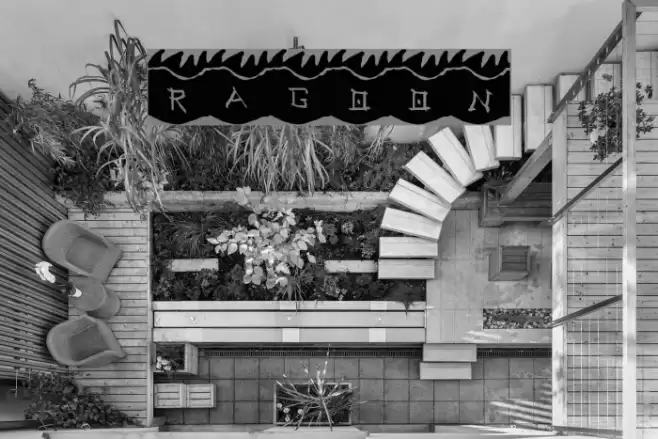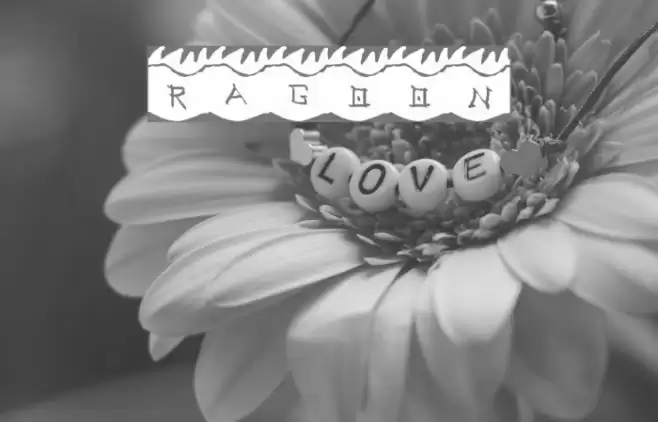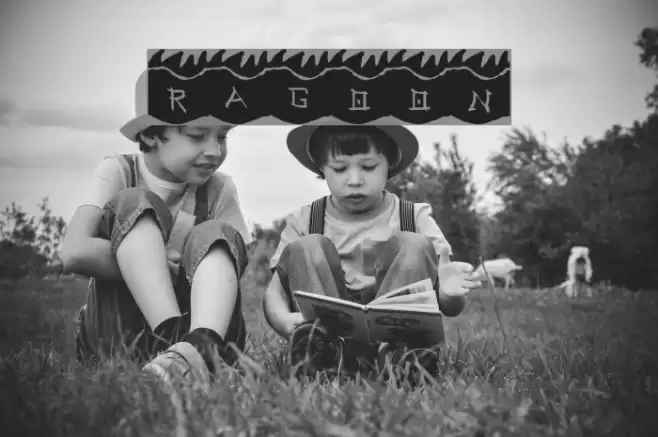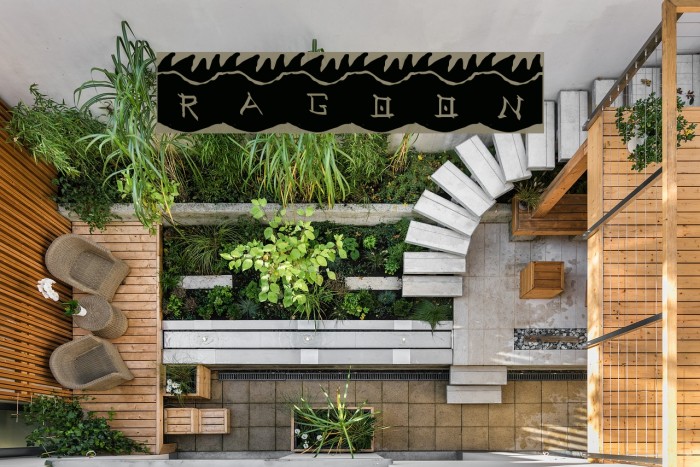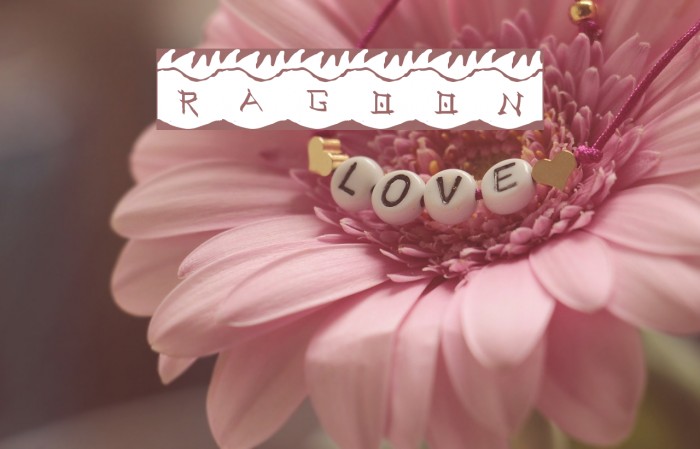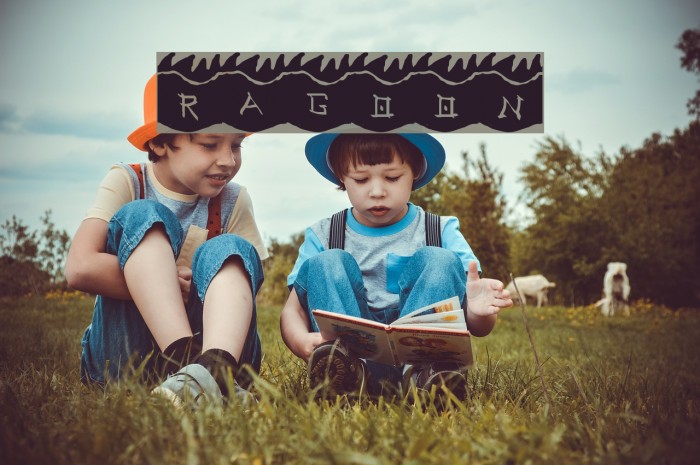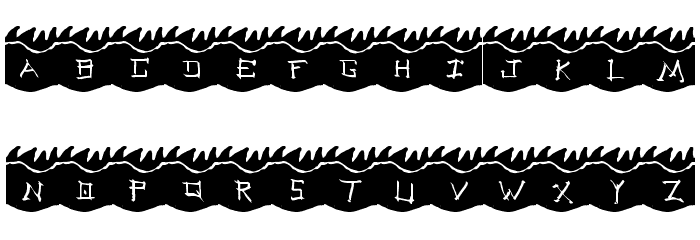
Dragoon Font
Dragoon Description
This font features a unique and bold design with a medieval, dragon-inspired aesthetic. The uppercase letters are encased in a jagged, flame-like border that adds a dramatic flair. The characters themselves are angular and sharp, reminiscent of ancient runes or inscriptions. This style is highly decorative, making it ideal for projects that require a strong visual impact. The font's distinctive appearance suggests themes of fantasy, adventure, or historical settings, making it suitable for creative projects that aim to evoke a sense of mystery and intrigue.
A bold, medieval-inspired font with a dragon-like, decorative style from Decorative fonts.
- Proposed Projects: Perfect for fantasy book covers, game titles, themed event posters, or any project needing a dramatic, medieval touch.